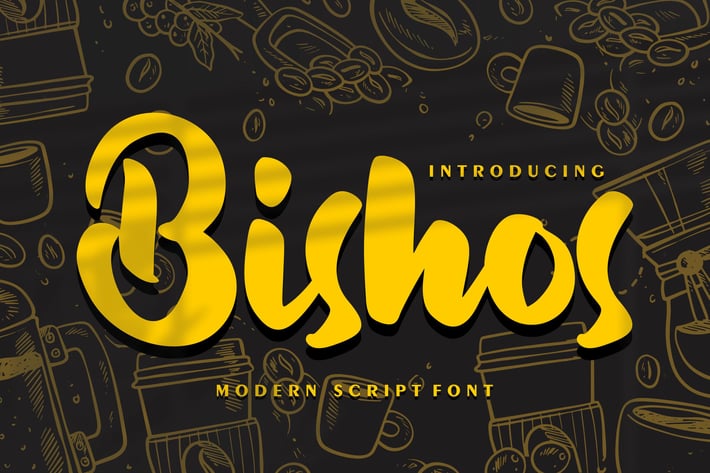
Bishos | Modern Script Font
Bishos | Modern Script Font with a calligraphy style, So beautiful on invitation like greeting cards, branding materials, business cards, quotes, posters, and more!